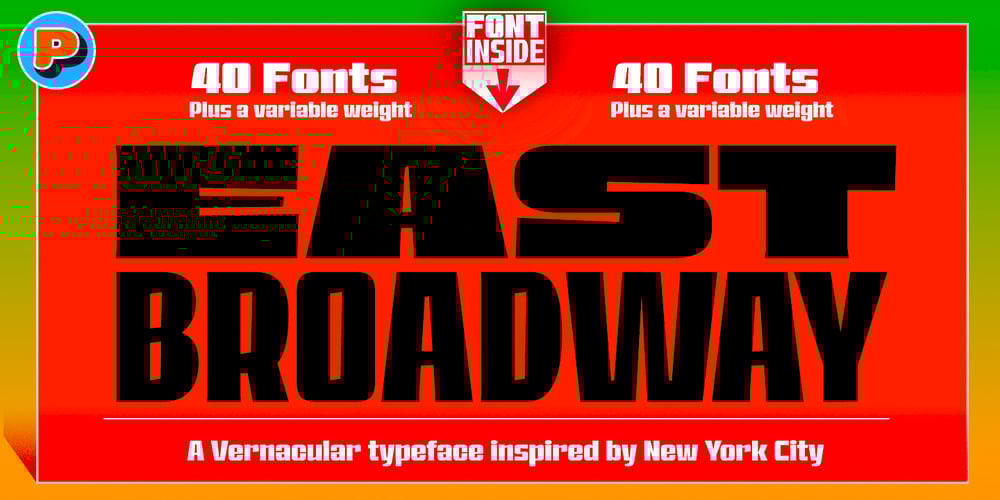
EastBroadway Font Family was designed by Marcelo Magalhães Pereira and published by Tipos Pereira. EastBroadway contains 41 styles and family package options. The EastBroadway typography has its origin in vinyl cut letters found in the Lower East Side neighborhood, from the EastBroadway subway station to 13th Street and 1st Avenue in New York. A clash between an improvised craft to elaborate fast and saving signs with a 40 weights type family + 1 variable font with weight and width axes, everything you need to make any word fit in your layout.